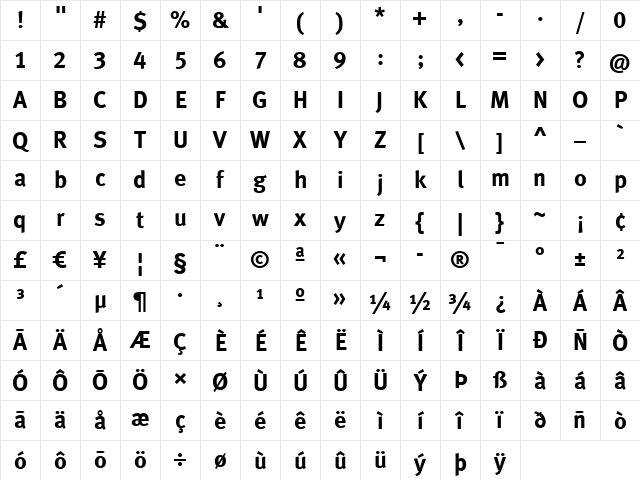
Meta Bold Roman
Style: Bold Roman
Foundry: Erik Spiekermann, published by Fontshop International for the FontFont library
Design Context for Meta
Meta is a composed and adaptable typeface that performs quietly and consistently across a wide range of design contexts. Its bold stroke weight gives it real presence on the page.
Who designed the Meta Bold Roman font?
This font was published by Erik Spiekermann, published by Fontshop International for the FontFont library. Check the technical specs section for copyright and designer details.